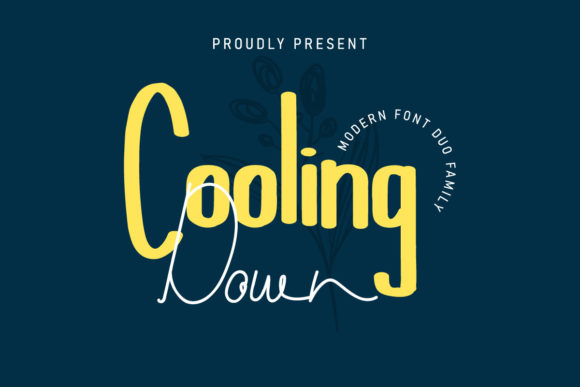
Get ready to discover Cooling Down Font, the duo font that will make your designs shine. This captivating script and sans serif font family is the perfect choice for adding a touch of elegance and sophistication to your creative projects. Cooling Down is the brainchild of EdricStudio, a renowned font designer known for creating fonts that are both beautiful and functional.
With Cooling Down, you get two fonts in one, giving you endless possibilities for customization. Use them together for a cohesive look or mix and match them to create unique and eye-catching designs. The script font exudes a sense of playfulness and charm, while the sans serif font adds a touch of stability and balance. Together, they create a harmonious and visually appealing combination that will leave a lasting impression.
But what sets Cooling Down apart from other fonts? It's all about the details. Every letter, every curve, every stroke has been carefully crafted to ensure that Cooling Down is not just another font, but a work of art. The script font features elegant swashes and flourishes that add a touch of whimsy and sophistication to your designs. The sans serif font, on the other hand, is characterized by its clean lines and sharp edges, providing a perfect contrast to the script font.
Whether you're a seasoned designer or just starting out, Cooling Down is the perfect font family for you. It's easy to use and incredibly versatile, making it suitable for a wide range of projects. From logos and branding to invitations and social media graphics, Cooling Down will help you create designs that are both captivating and memorable.
So why settle for ordinary fonts when you can have extraordinary? Experience the beauty and versatility of Cooling Down Font today and let your creativity soar.